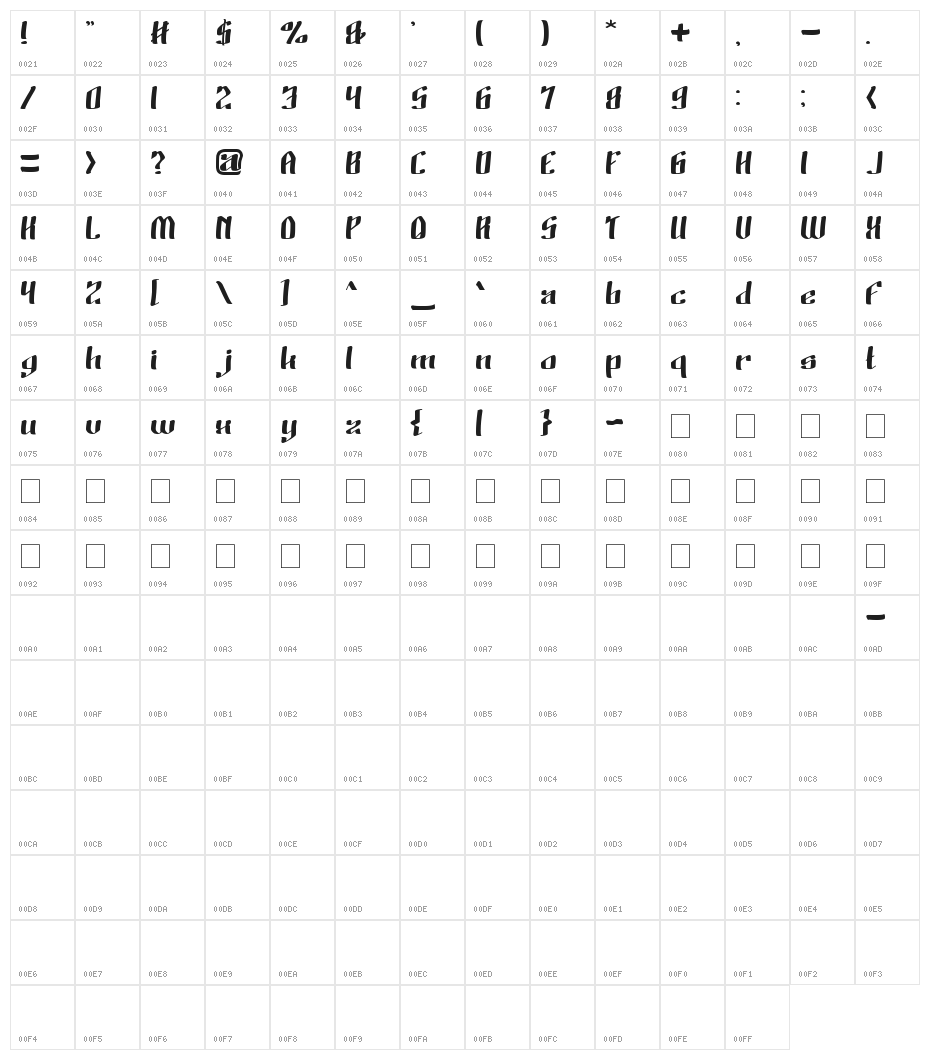
Wino Sutarmin Kadir Font
Wino Sutarmin Kadir Description
This font features a bold and dynamic style with a strong presence. The characters are designed with a calligraphic influence, showcasing sharp angles and fluid strokes that give it a unique and artistic flair. The uppercase letters are particularly striking, with a sense of movement and energy, while the lowercase letters maintain a consistent flow. The numerals and special characters are equally bold, ensuring readability and visual impact. This font is ideal for projects that require a touch of elegance and creativity.
| Proposed Projects | Ideal for branding, posters, invitations, and artistic projects that require a bold statement. |